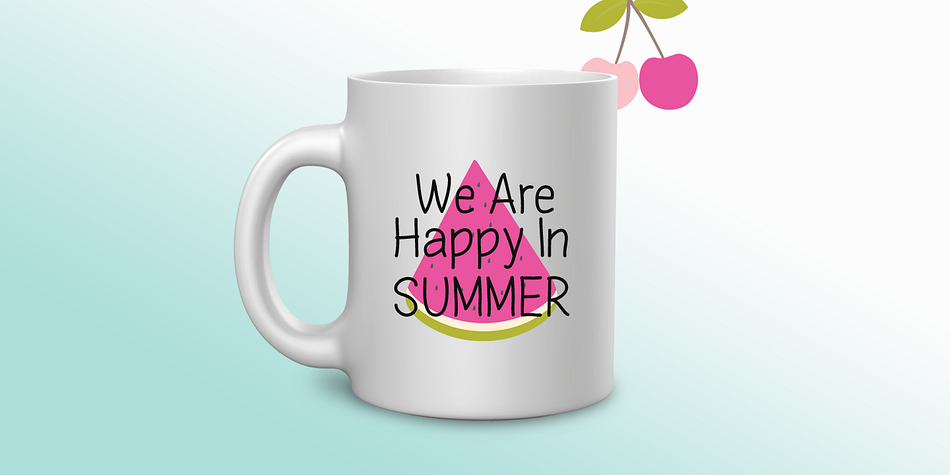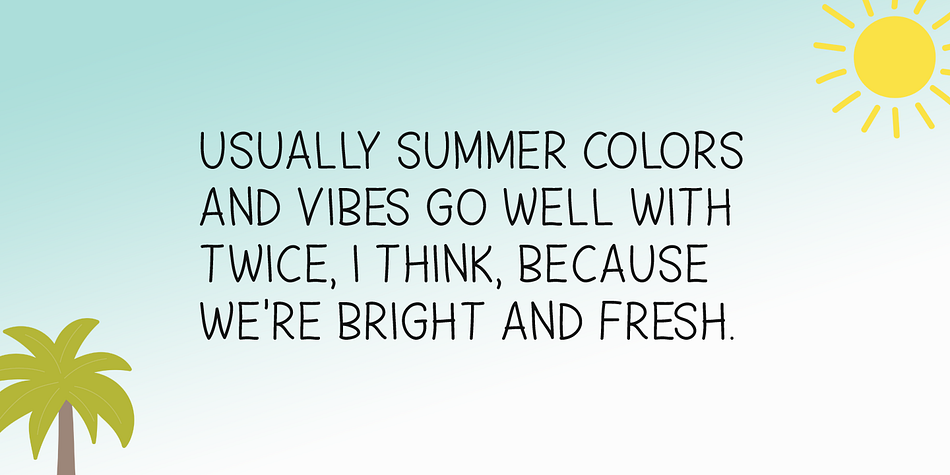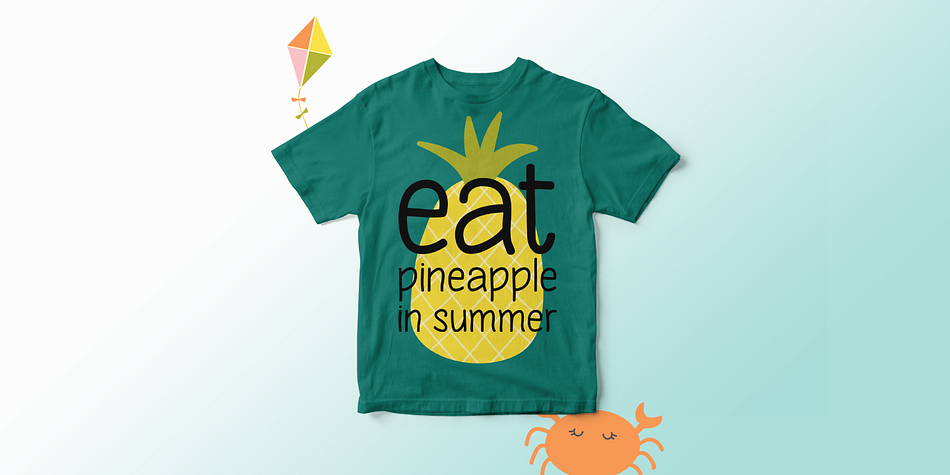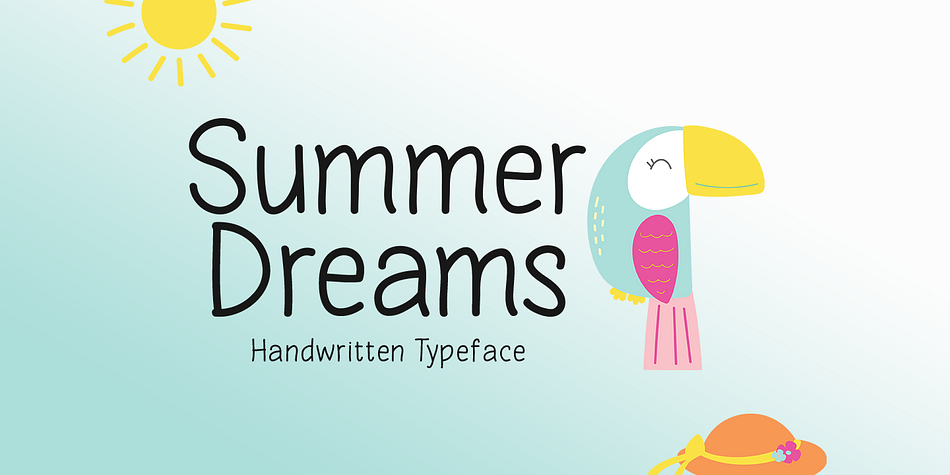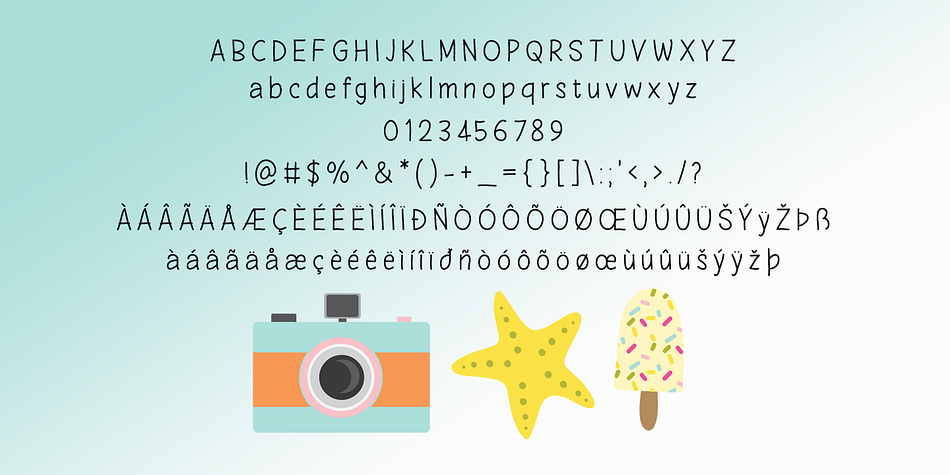
Designed by Md. Shohail Bhuiyan, Summer Dreams is a hand display and hand drawn font family published by Seemly Fonts.
Summer Dreams is a brand new handwritten font perfectly suited for stationery, logos, t-shirts, print design, website headers, photo frames, flyers, music album covers, posters, image sliders, and much more. Add this font to your favorite creative ideas, and notice how it makes them come alive!